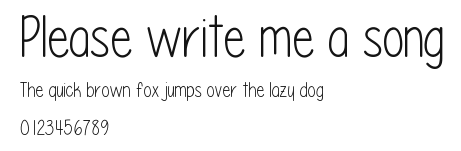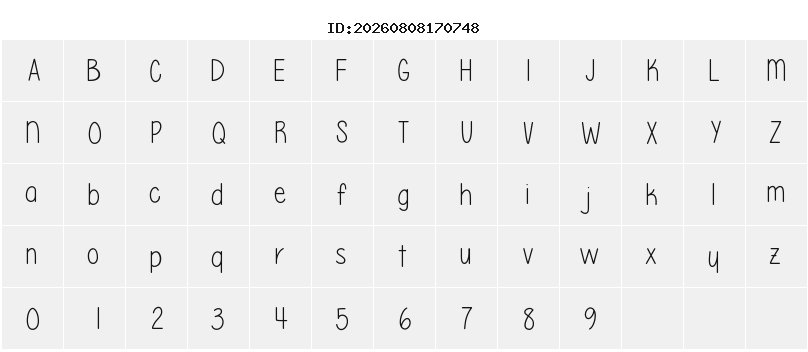
Please write me a song Preview
• Font Name: Please write me a song
• Font ID: Vanessa Bays - Please write me a song
• Full Font Name: Please write me a song
• PostScript Name: Please write me a song
About Please write me a song.ttf
Please write me a song.ttf is a modern, elegant sans-serif font designed for ultimate readability and visual harmony. Perfect for branding, headlines, web design, and print materials.